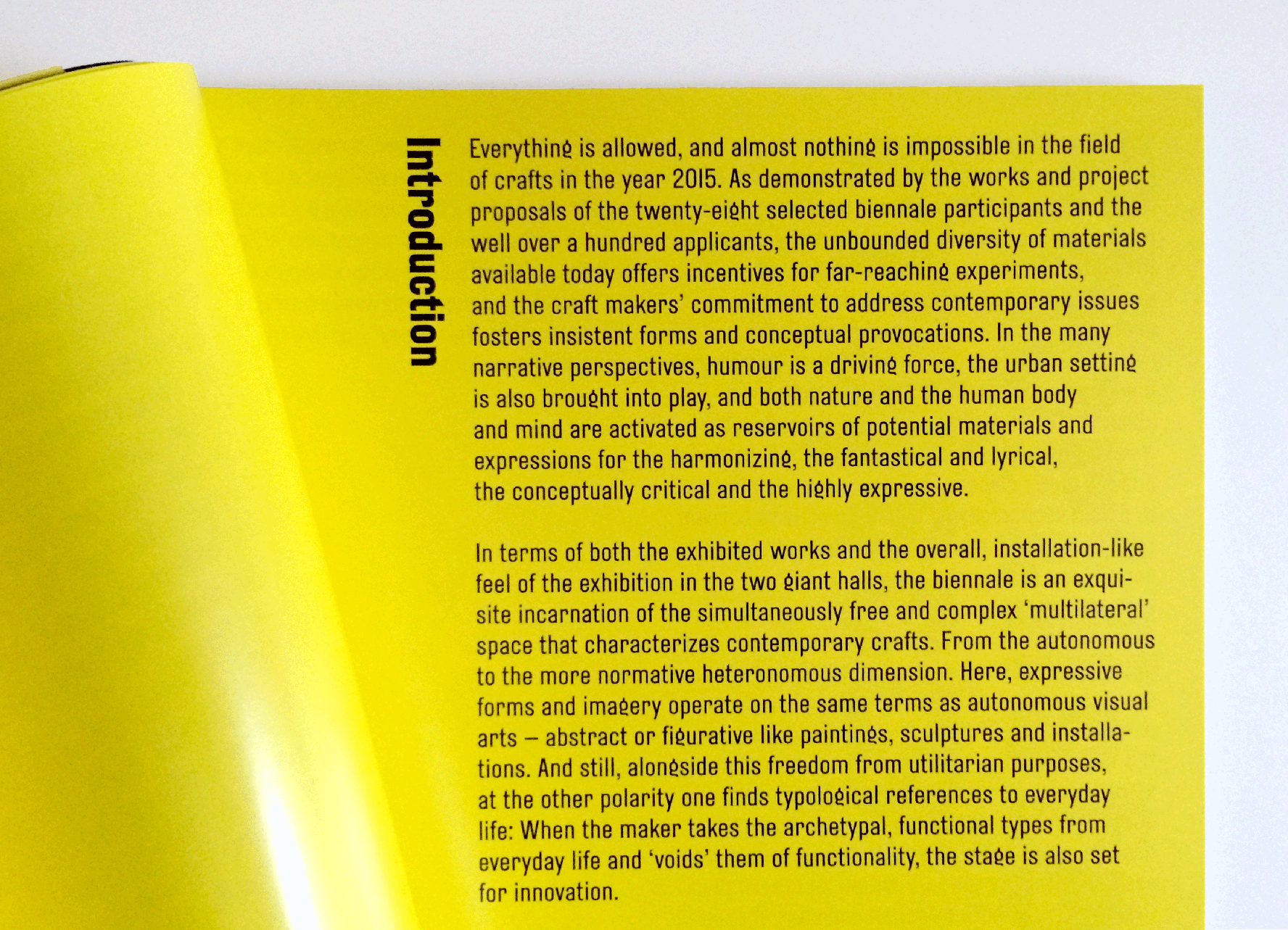
CPH Tram Font Family
A revival of a typeface used for destination signs displayed on the front of Danish trams ca. 1920. Using original hand-painted signs as a departure point, the typeface has been lovingly revived as a contemporary design now available in eight weights.